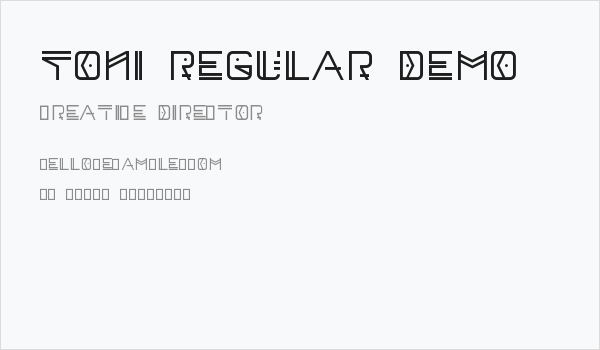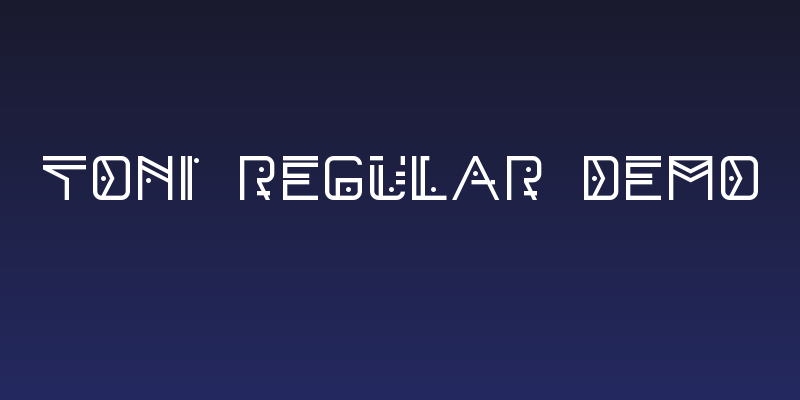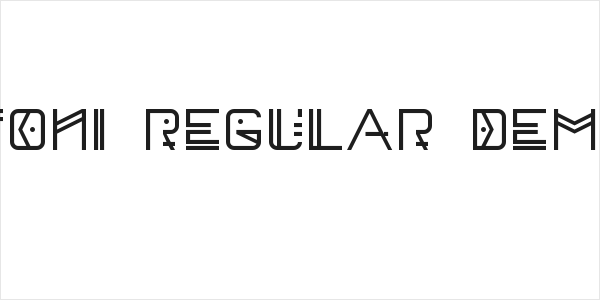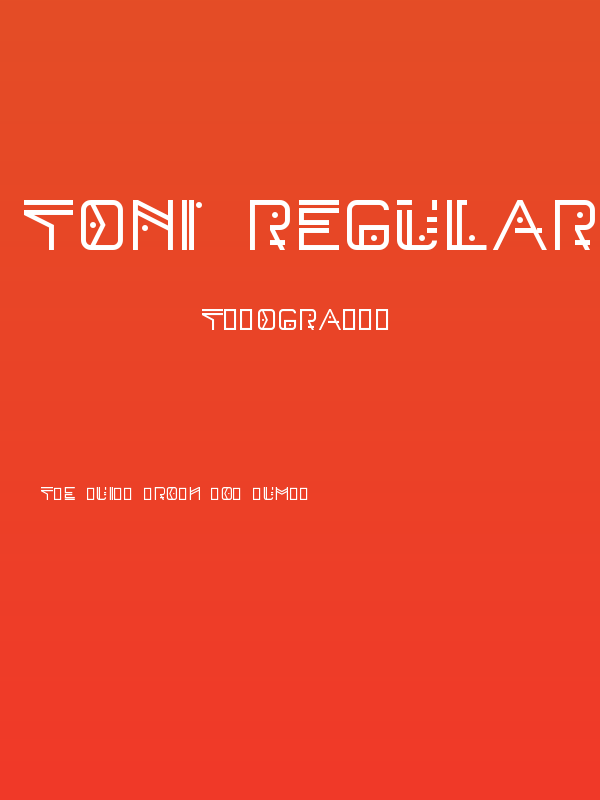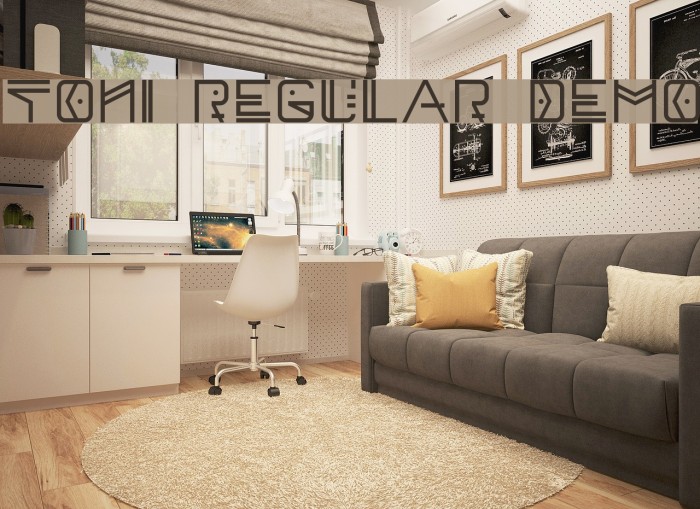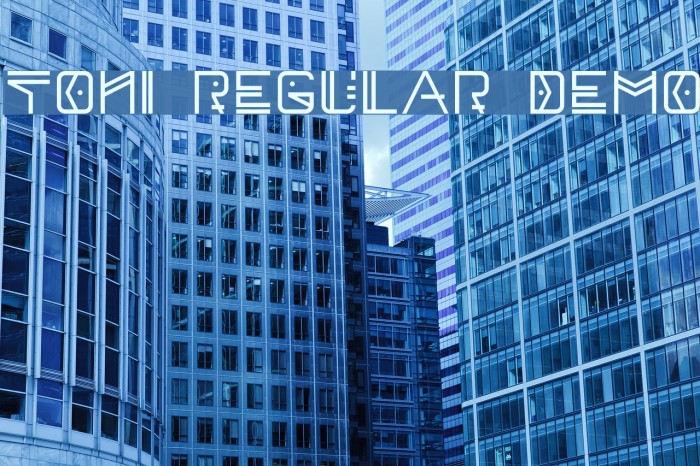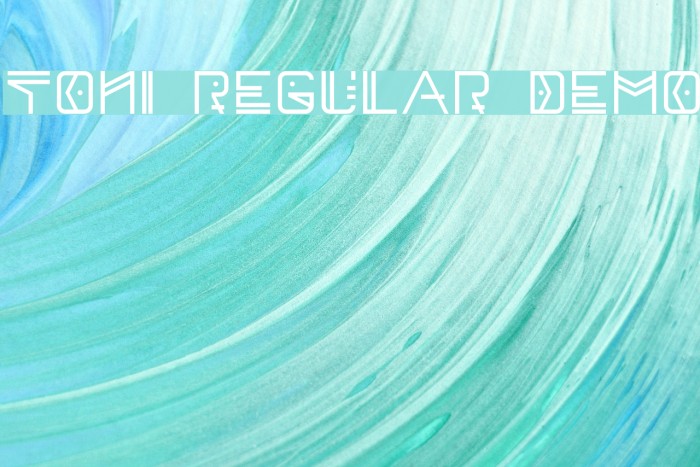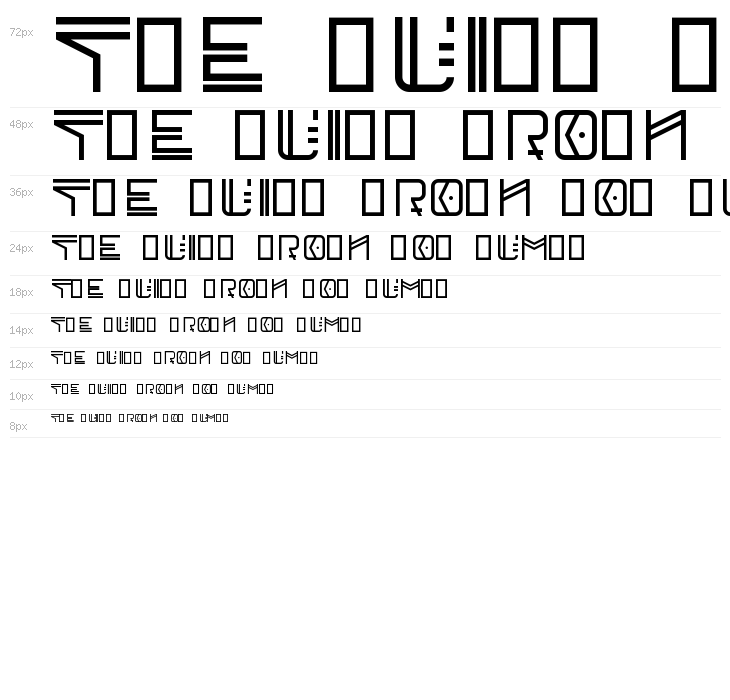
Toni Regular Demo Font
Toni Regular Demo Description
This font features a unique, futuristic design with geometric shapes and intricate details. The characters are composed of bold, angular lines with occasional decorative elements, such as dots and slashes, giving it a distinct, tech-inspired appearance. The uppercase and lowercase letters maintain a consistent style, while the numerals and special characters follow the same design principles. The overall look is modern and unconventional, making it suitable for creative and innovative projects.
| Proposed Projects | Ideal for sci-fi themed designs, technology branding, video game titles, and modern art posters. |